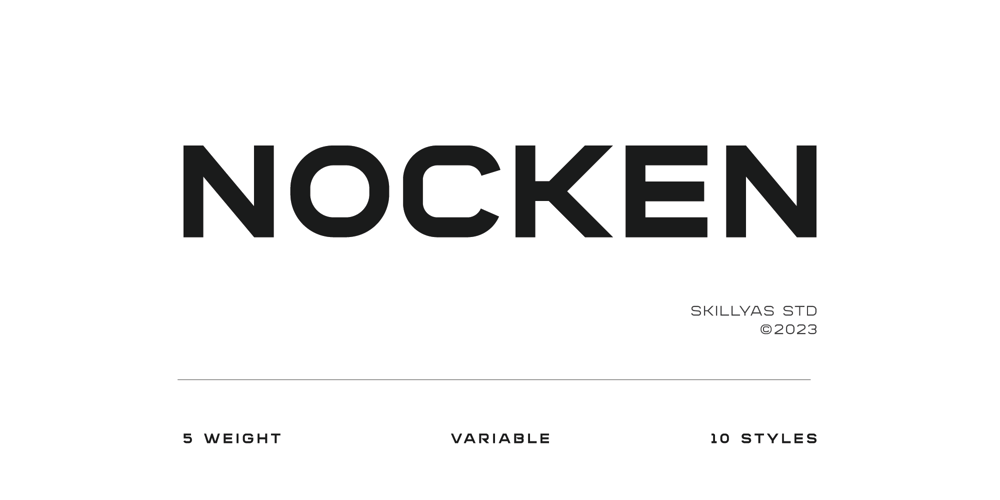
Nocken Font Family was designed by ahmad faizin and published by skillyas studio. Nocken contains 10 styles and family package options. Nocken is a sleek and modern sans-serif font that exudes elegance and simplicity. With its clean lines and minimalistic design, Its versatility allows it to be used for a wide range of projects, from branding and logo design to web and print materials.Nocken’s balanced proportions and subtle details make it highly legible and visually appealing, ensuring that your message will be conveyed with clarity and style.to see more our work visit our website: skillyasstudio.com